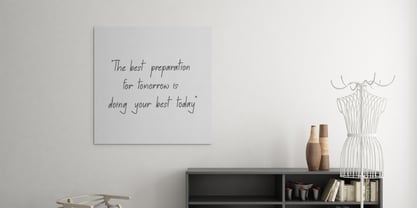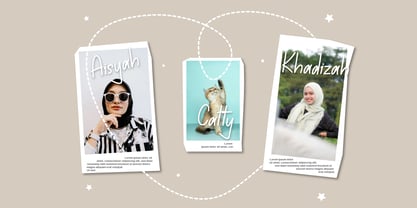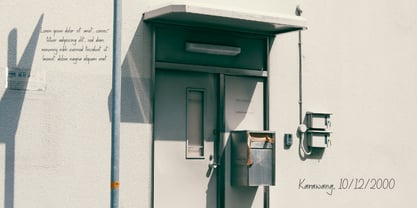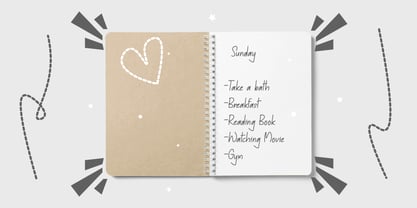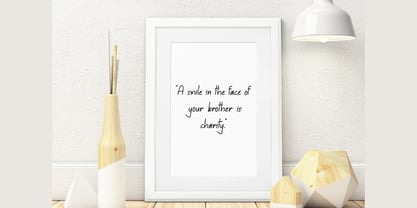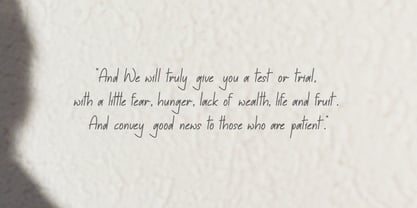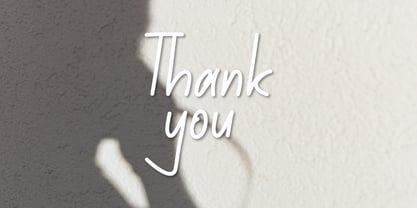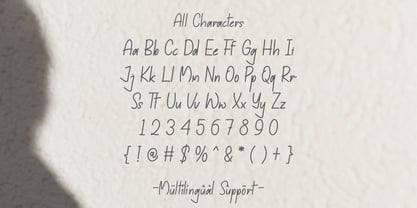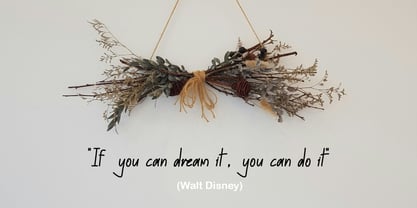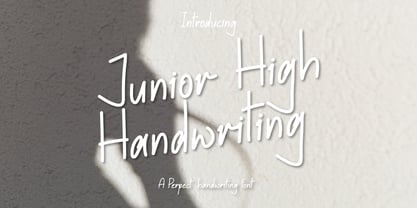
Junior High Handwriting
par Patlot Digital Studio
La famille de polices Junior High Handwriting a été conçue par Gugun Gunawan et publiée par Patlot Digital Studio. Junior High Handwriting contient 1 styles. En savoir plus sur cette famille
Discover “Junior High Handwriting,” a sleek, adaptable font meticulously crafted by Patlot Digital Studio. This elegant typeface caters to a wide array of creative demands, from enchanting quote designs and chic birthday schemes to crafty invitations, delightful books, and engaging agendas. Incorporate the distinct “Junior high Handwriting” vibe into your design endeavors, empowering you to transform your imaginative vision into a tangible reality.
Patlot Digital Studio was founded in 2022 and is managed by Gugun Gunawan. I love drawing letters. I want to continue developing my creativity and using my passion to provide greater benefits for myself and the design community. I founded Patlot Digital Studio to help designers choose their projects. I create handwritten fonts, script fonts, and display fonts. Now I pursue my new passion full-time from my home studio.